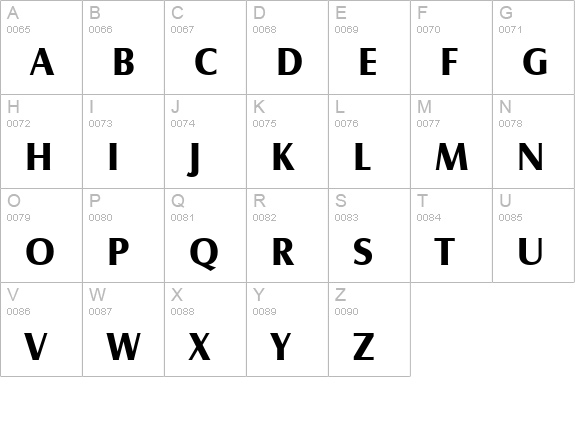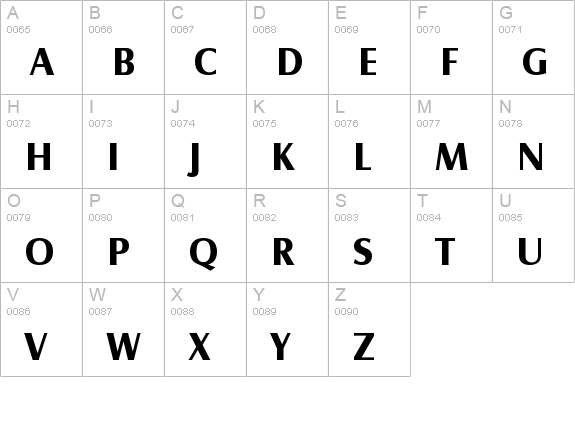
Canossa-Bold Font Details
Canossa-Bold is a strong, high-contrast variant in the Canossa typeface family \xE2\x80\x94 well suited to headlines, attention-grabbing titles, and strong calls-to-action.
Canossa-Bold is a striking and modern typeface that exudes elegance and sophistication. With its bold and commanding presence, this font is perfect for making a strong statement in any design project. The sharp edges and sleek lines of Canossa-Bold give it a contemporary feel that is both eye-catching and versatile. The best part? Canossa-Bold is available for free download at FontsMarket.com, making it accessible to designers and creatives looking to add a touch of boldness to their work. Whether you're designing a logo, poster, or website, Canossa-Bold is sure to make a lasting impression with its unique and powerful aesthetic. Elevate your designs with Canossa-Bold and take your projects to the next level.